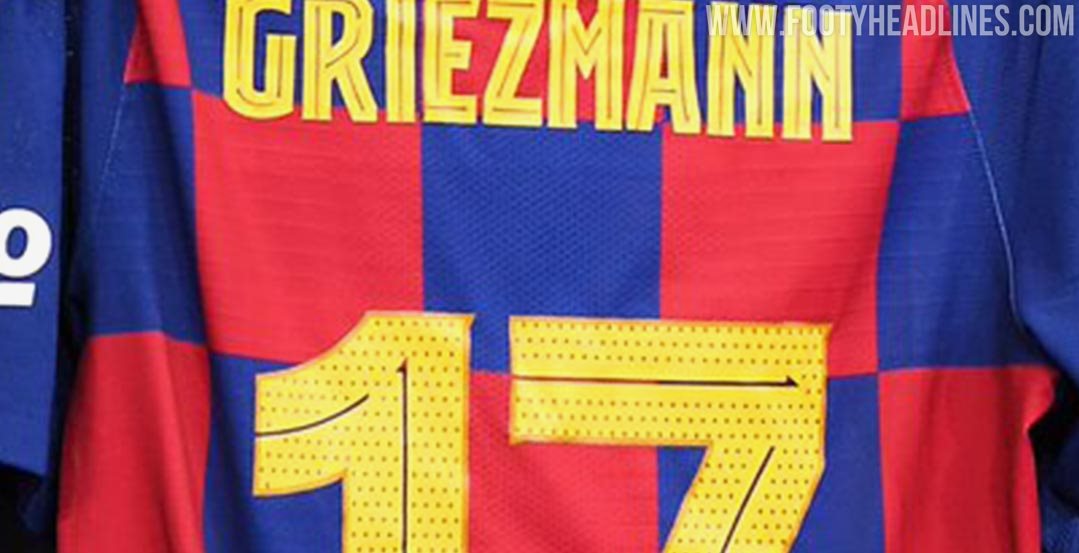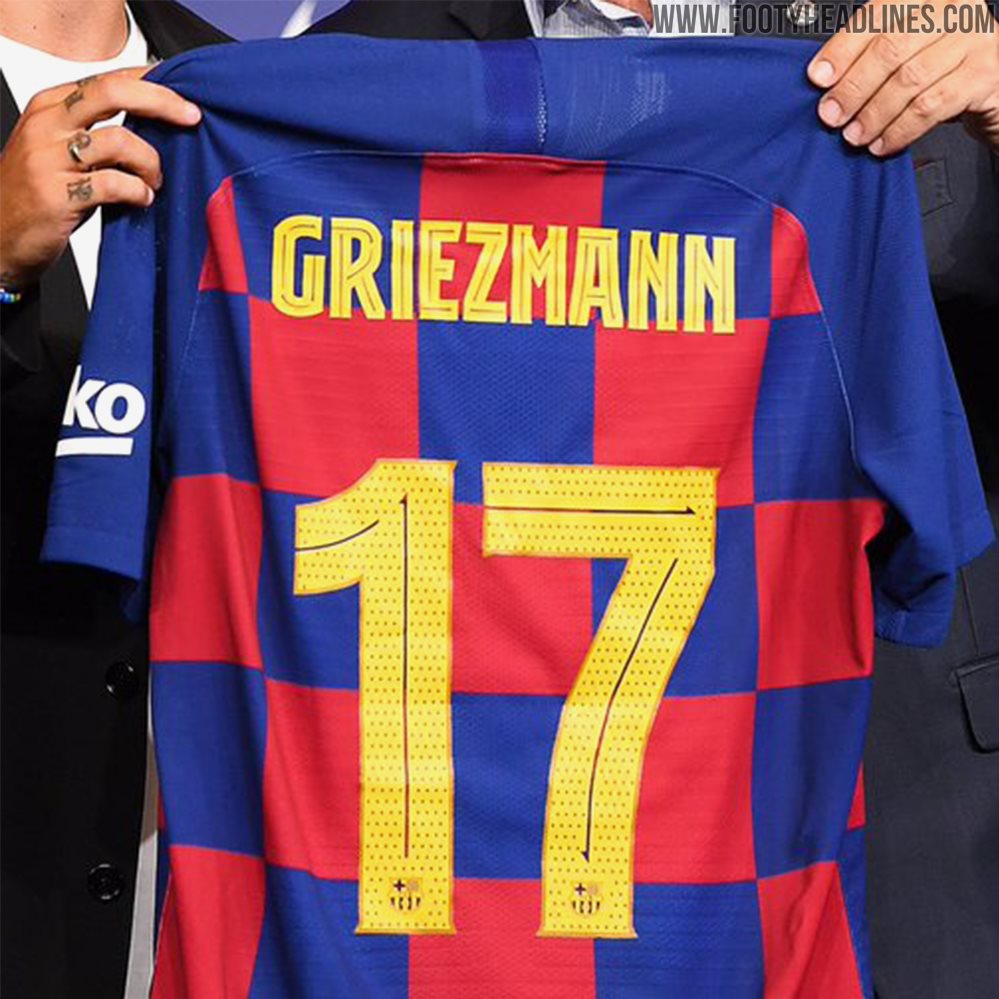
Official Debut Incoming: Full FC Barcelona 19-20 Font Revealed - Champions League Only
Update: The Barcelona first team will finally debut their new font officially in the Champions League opener away to Dortmund next Tuesday.
The club's 'B' and youth teams have already used the font in their first league matches of the new season, and now Leo Messi and Co. are set to follow. Unfortunately, the font is still only available to those who shop at a physical location such as the famous Camp Nou store.
Update: Following the club's first two preseason games, we've had a look at pictures from the game to give you a better look at the new club font 'FC Barcelona Play'. Unfortunately and incomprehensibly, the font is not available online anywhere and can only be bought in the local official club stores.
A day after the presentation of Frenkie de Jong, FC Barcelona today officially revealed their brand-new typeface, 'FC Barcelona Play'.
The FC Barcelona Play font will be used by the football team in all competitions that don't prohibit the use of a custom design: most importantly the UEFA CHampions League, but also friendlies and the Copa del Rey final. In the league, Barcelona will continue to use the La Liga typeface design, just like in the previous two seasons.
In 2017, La Liga introduced a streamlined font to be used by all teams of the Spanish first division, similar to the Premier League. Real Madrid were really unhappy with it and even filled a lawsuit against being forced to use the font of La Liga. Real Madrid used an own font and never the La Liga font in the Champions League, however, in contrast to Barcelona.
Shown off by de Jong as well as other new Barcelona signings this season like new FCB Basket player Cory Higgins, the FC Barcelona Play 19-20 font introduces a totally new design.
FC Barcelona 2019-2020 Jersey Font
Here's how Messi's shirt will look like next season.
The new Nike FC Barcelona 19-20 kit font features a more classy design than the league-wide La Liga typeface. The letters feature an edged design with a thin line, the numbers come with the Barca crest. Another difference is that the names of player are aligned straight and not on a curve as with the league font.
Although Barcelona had exclusive font designs before, it's the first time that the club undertook the challenge of coming up with a new design as previous typefaces were created by Nike.
Conceptually, FC Barcelona Play is a typography based on the origins and history of the club, Catalan modernism in the late nineteenth century and specifically relating to the direct link between Barça and the current artistic and aesthetic trends in the city of Barcelona and Catalonia. The intention was that each word written with the typography had its own personality and ability to have variants.